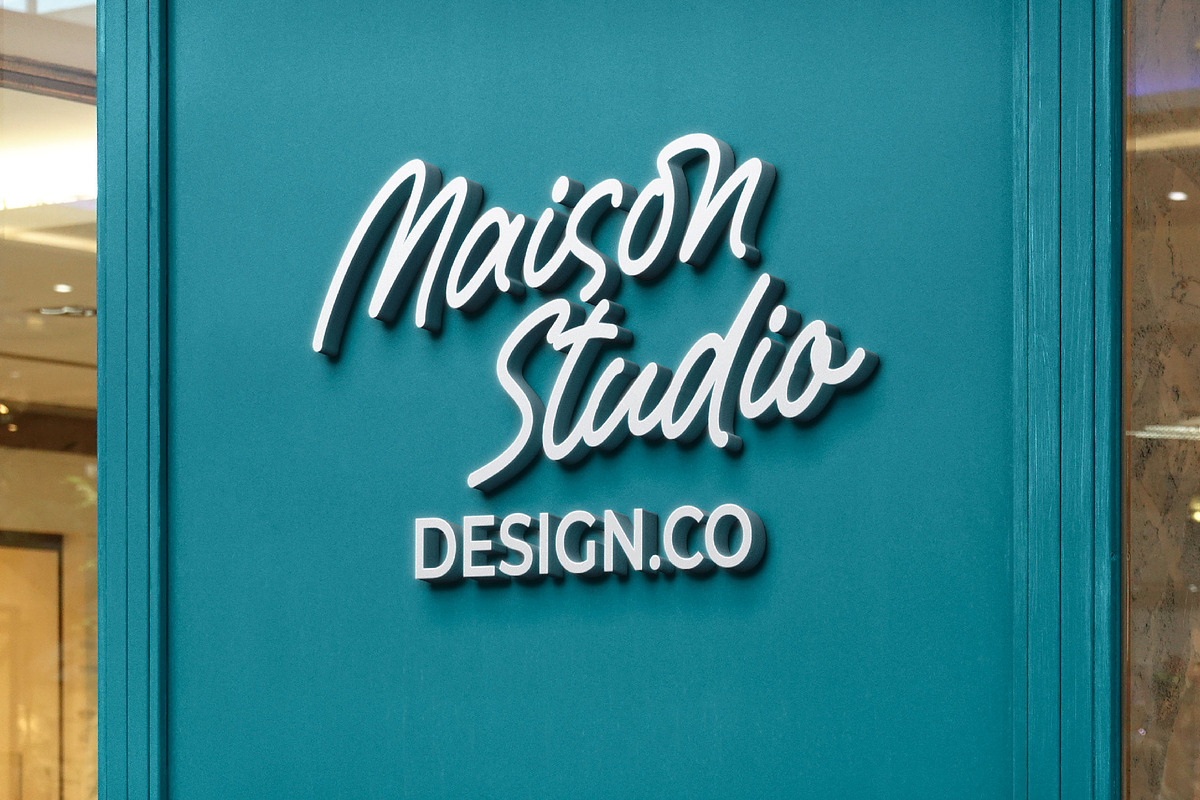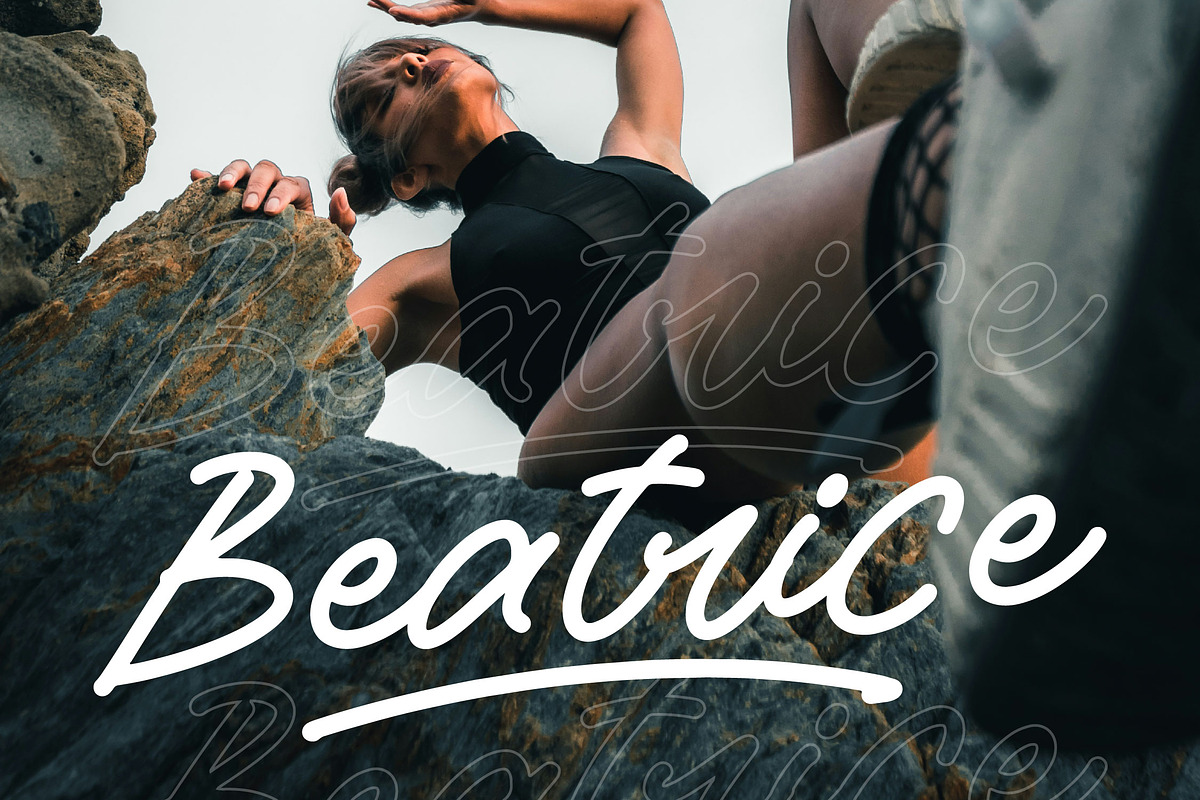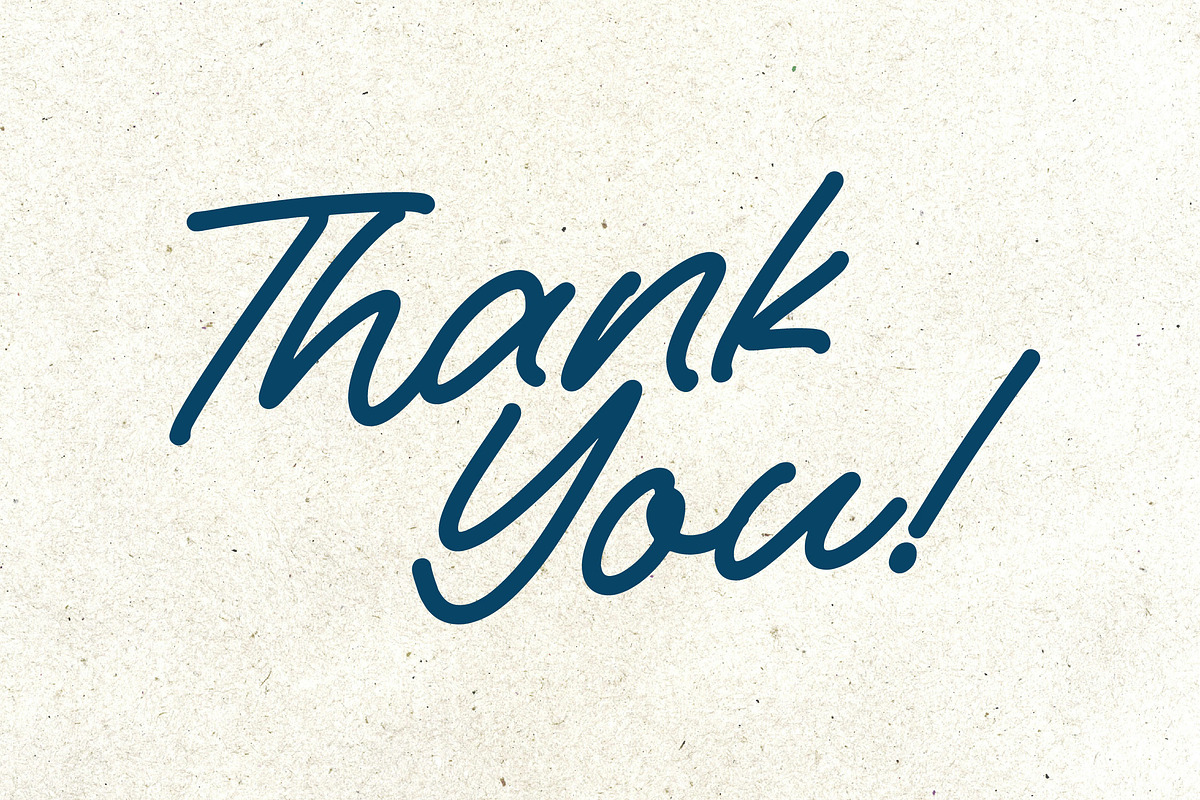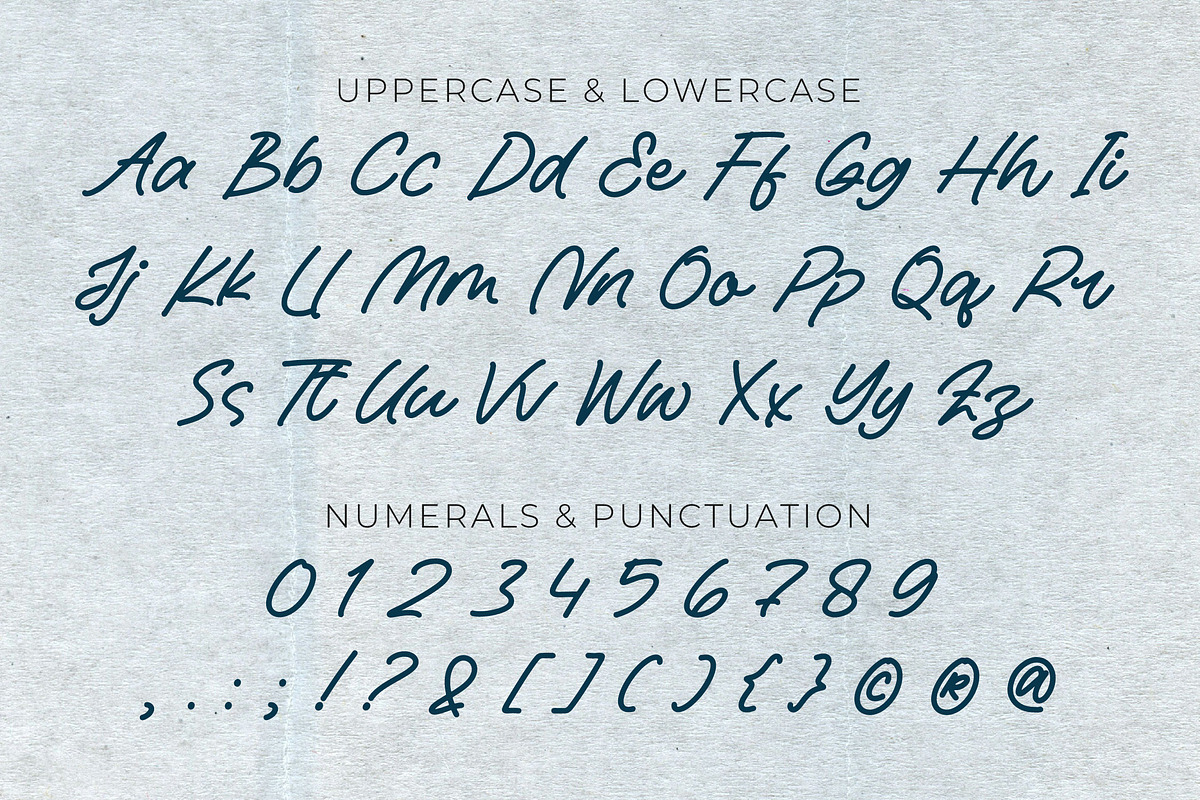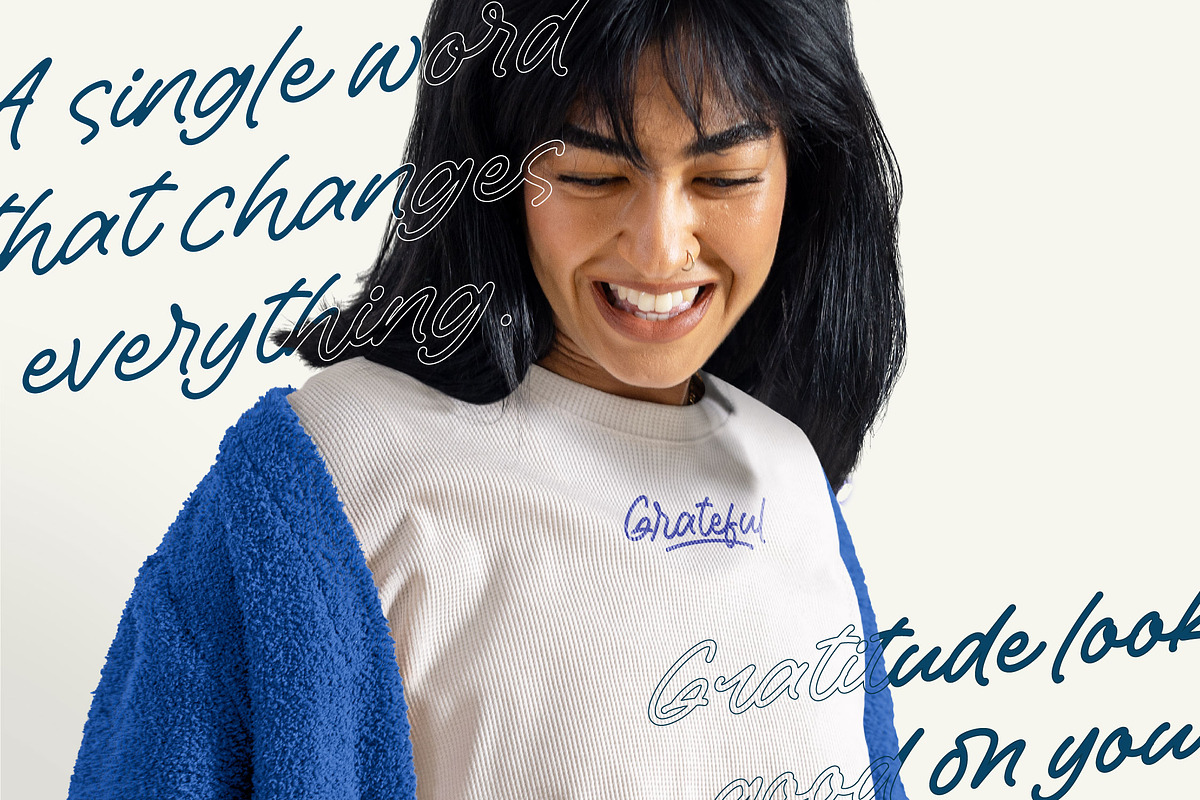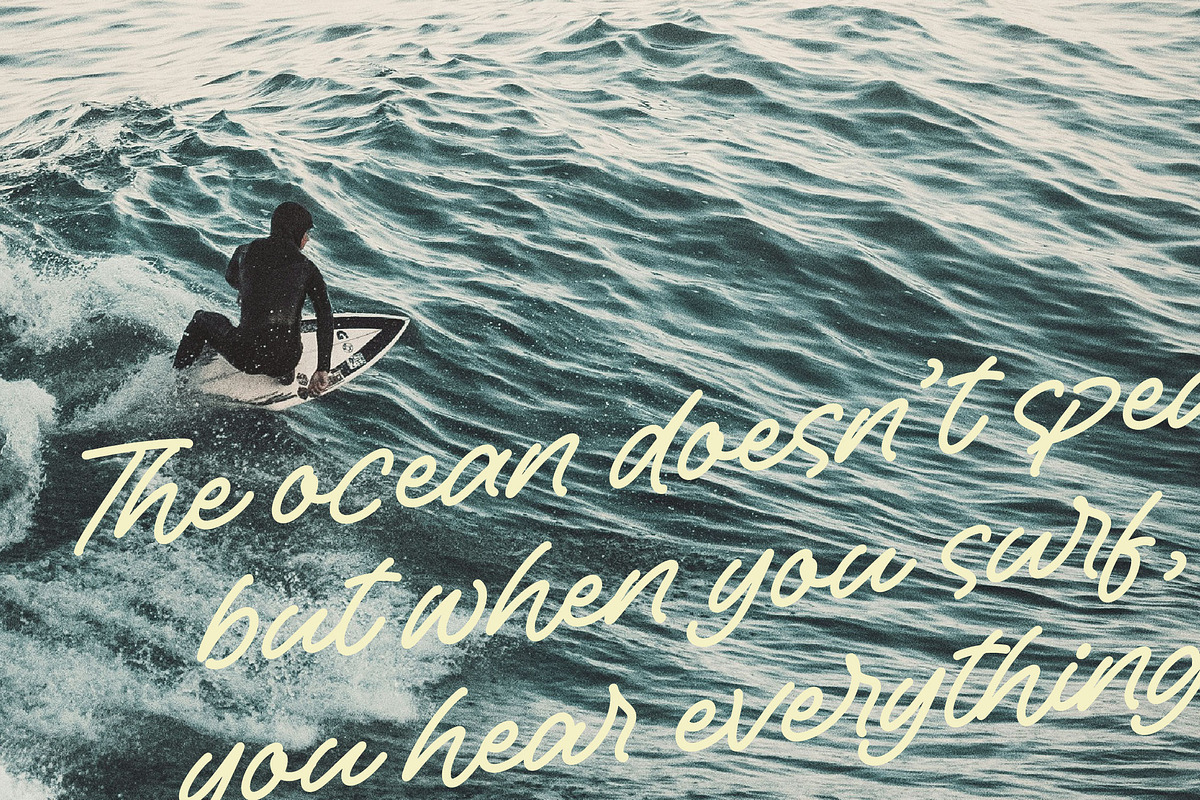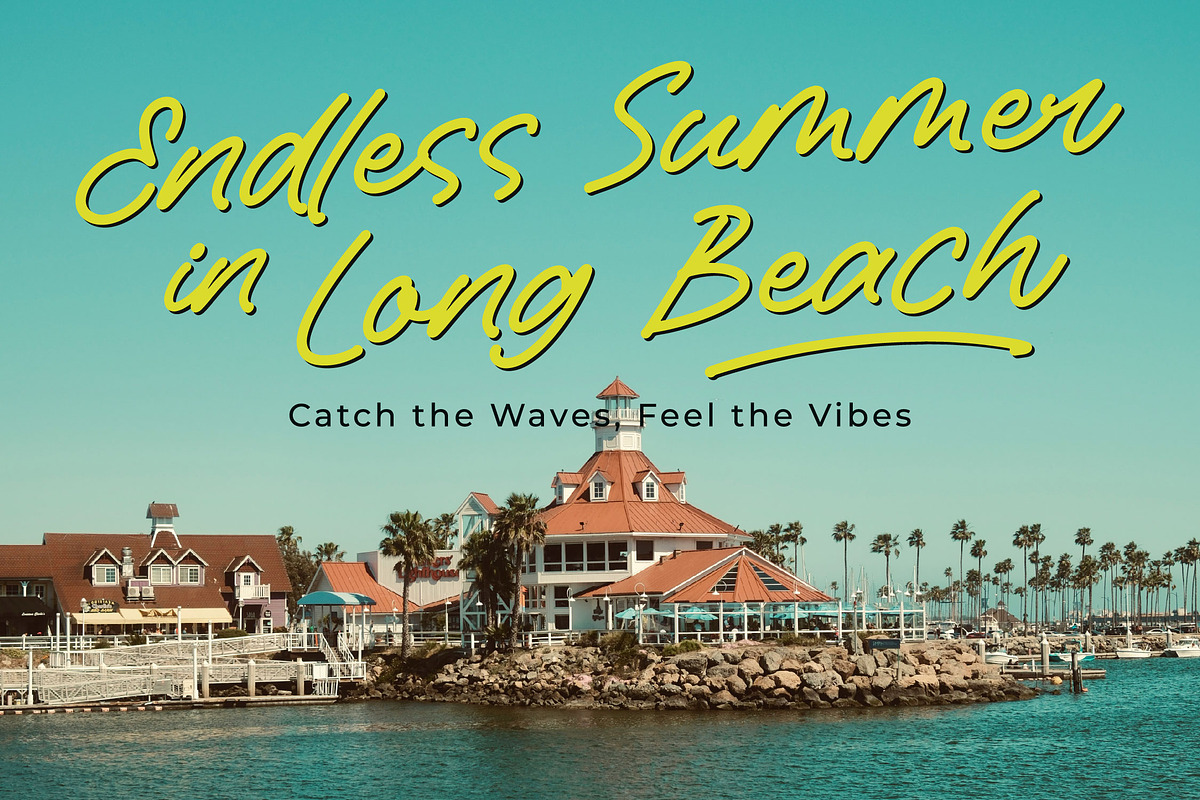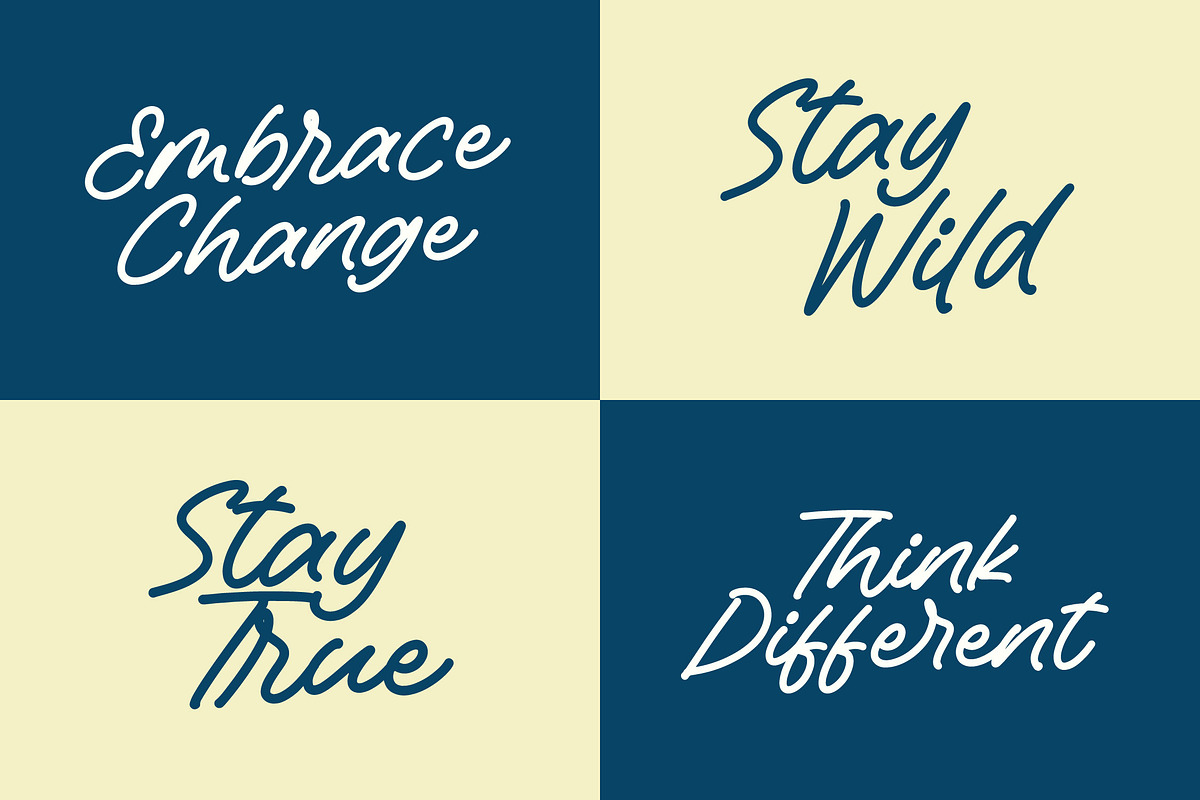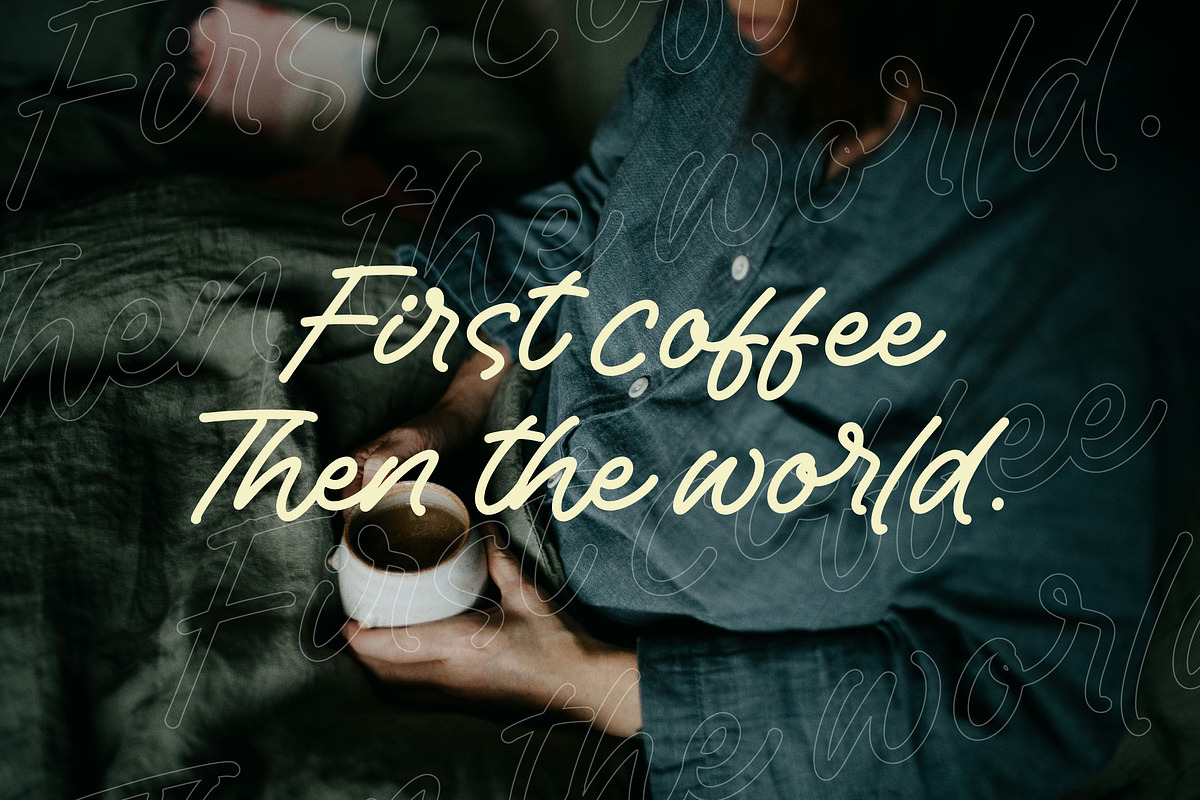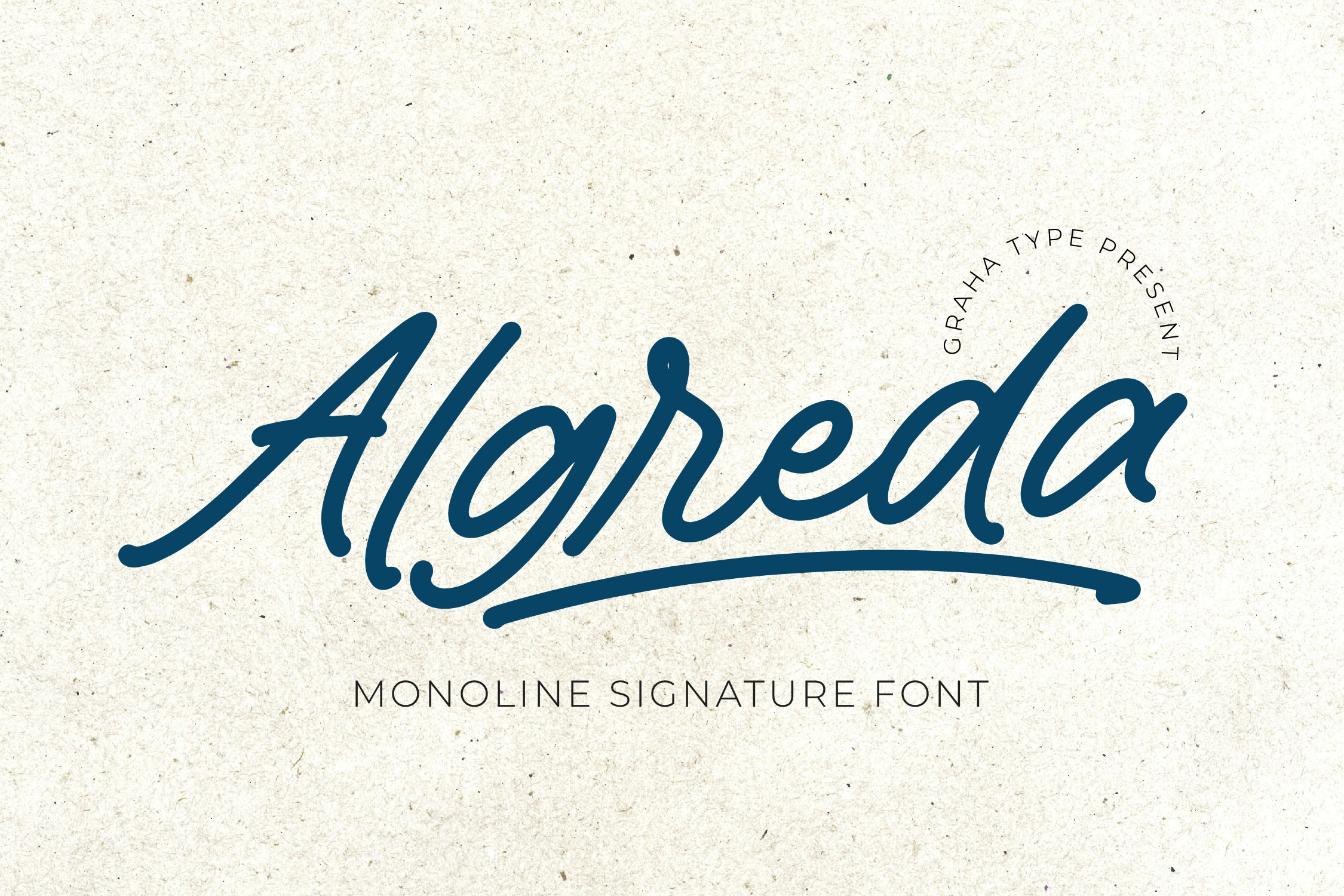
Algreda - Monoline Signature Font
Algreda is a stylish monoline signature font that brings elegance and personality to your designs. Crafted to mimic the flow of natural handwriting, this font is perfect for high-end branding, wedding stationery, product packaging, and creative logos.
With its smooth curves, thin lines, and well-balanced characters, Algreda is a great choice for designers seeking a modern, feminine, and handcrafted touch.
- Alternate & Ligatures
Ideal for:
- Signature logos
- Wedding invitations
- Personal branding
- Social media graphics
- Boutique packaging
Add a sense of authenticity and class to your next project with Algreda.